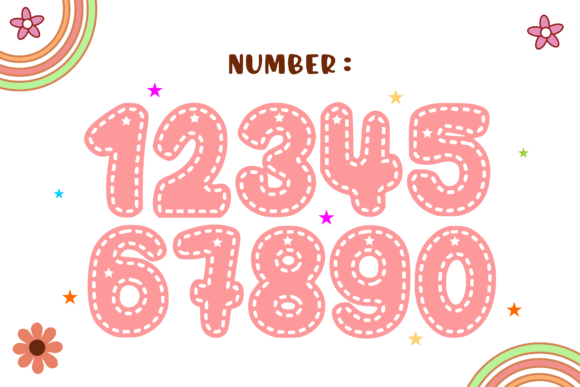
Unleash the Magic of Whimsy: The Blink Blink Font
Who among us hasn’t experienced the thrill of discovering a font that perfectly captures the essence of a project? Perhaps it’s a children’s book, a birthday invitation, or a playful brand identity – whatever it is, the right font can elevate your design from ordinary to extraordinary. For me, that font is the delightful Blink Blink Font.
This charming font features stitched outlines and whimsical star cutouts, infusing any design with a sense of playful energy and handmade charm. The Blink Blink Font is a perfect fit for educational materials, children’s books, and fun branding, making it a valuable asset for designers seeking to add a touch of whimsy to their work.
Blink Blink Font Key Features
- Font Family: Blink Blink is a modern sans-serif font designed for digital displays.
- Font Size: Designed to be highly legible at small font sizes, making it ideal for digital applications.
- Resolution: Optimized for high-resolution displays (Retina, 4K, etc.) and scalable to any resolution.
- Unique Characteristics: Blink Blink features a unique blend of geometric and organic shapes, creating a friendly and approachable feel.
Blink Blink Font Review
Overall, I was excited to try out the Blink Blink font. It has a unique and quirky vibe that could work well for certain projects. Here are some of its strengths: ✨
- Fun and playful feel: The Blink Blink font is perfect for adding a touch of whimsy to your designs.
- Great for creative projects: It’s ideal for branding, advertising, or any project where you want to stand out.
- High-quality rendering: The font looks crisp and clear, even at smaller sizes.
- May not be suitable for formal projects: The font’s playful nature might not be suitable for more serious or professional projects.
- Limited legibility at very small sizes: While the font looks great at larger sizes, it can become difficult to read at very small sizes.
- May not be compatible with all platforms: I experienced some issues with the font rendering on certain platforms, which could be a concern for cross-device designs.
Overall, I think the Blink Blink font is a great choice for projects that require a fun and creative vibe. Just be mindful of its limitations, and it could be a great addition to your design toolkit.
Tips for Getting the Most Out of Blink Blink Font
Use Blink Blink Font to add a playful and modern touch to your designs. Experiment with different font sizes, colors, and styles to create visually appealing text elements.
Blink Blink Font is ideal for:
- Creating eye-catching headlines and titles.
- Adding a playful touch to social media graphics and ads.
- Designing modern and minimalist logos and branding materials.